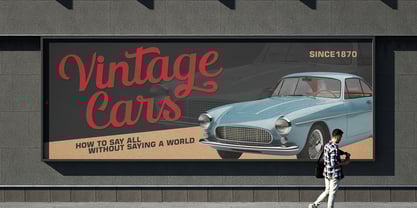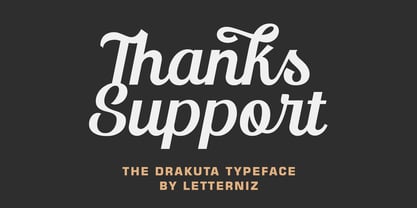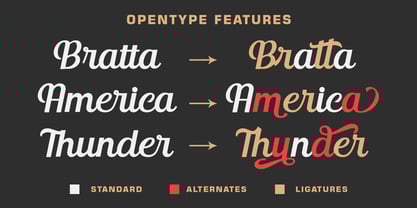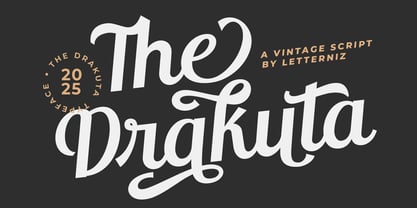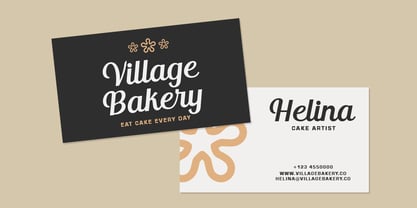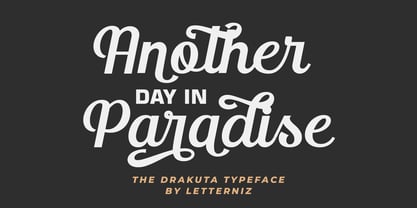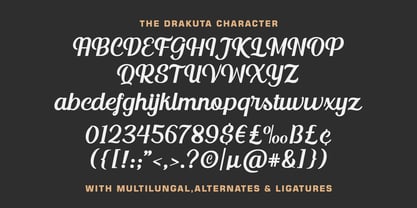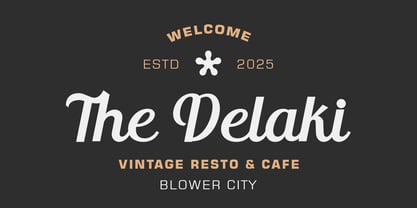
The Drakuta
by Letterniz
The The Drakuta Font Family was designed by Nizar Bagas Maulana and published by Letterniz. The Drakuta contains 1 styles.
The Drakuta is a vintage script typeface with vintage looks. The Drakuta has lots of alternate characters, ligatures and multilingual support. Suitable for both, modern and classic design projects. The Drakuta is perfect for designing badges, labels, t-shirts, branding, logos, posters, book covers, packaging, and more. You can design beautiful, elegant and diverse typographic elements with it.
Uppercase & lowercase letters
Numerals & punctuation
Multilingual support